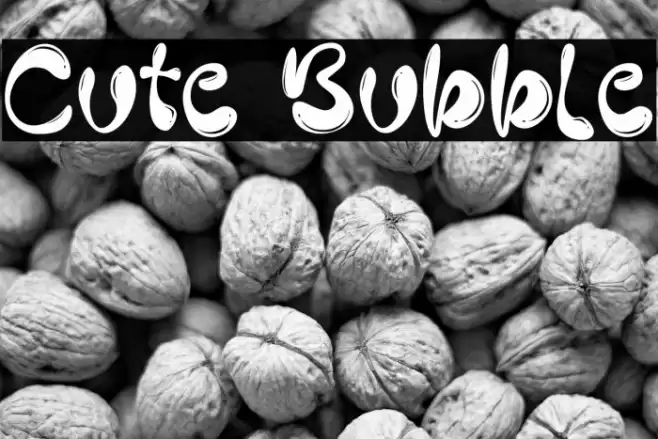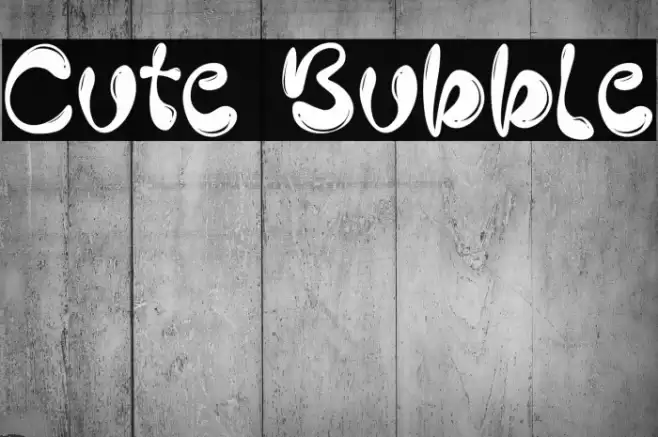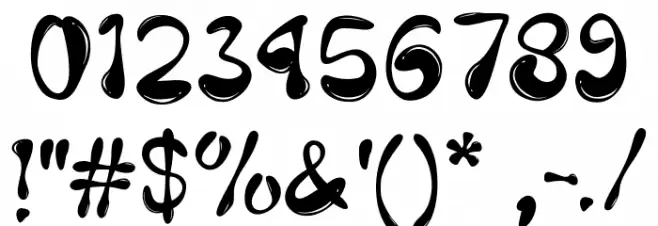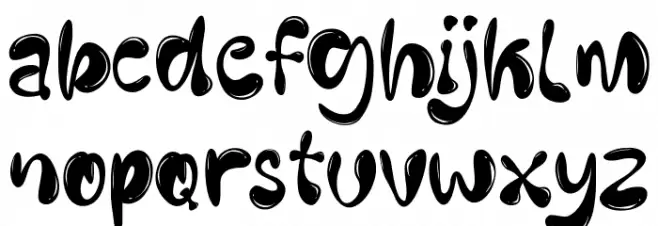
Cute Bubble Font
Cute Bubble Description
This playful and whimsical font features rounded, bubble-like characters that exude a sense of fun and creativity. The letters are bold and have a soft, inflated appearance, making them stand out with a friendly and approachable vibe. The font maintains a consistent thickness throughout, with smooth curves and a slightly irregular baseline that adds to its charm. The numbers and special characters are equally playful, maintaining the same bubbly aesthetic. This font is perfect for projects that require a lighthearted and cheerful touch.
A playful, bubble-like font with rounded, bold characters from Cartoon fonts.
- Font: Cute Bubble
- Proposed Projects: Ideal for children's books, playful branding, party invitations, and creative posters.
- Overall Style: Playful, Whimsical